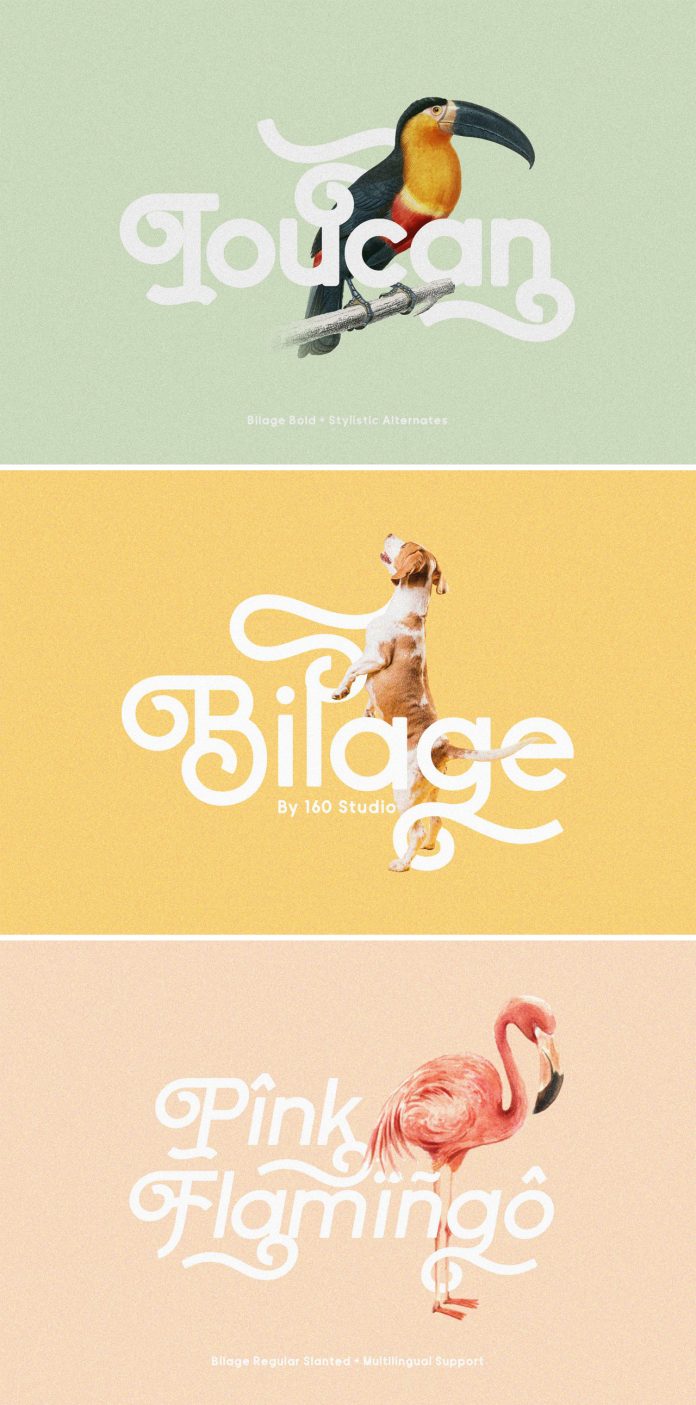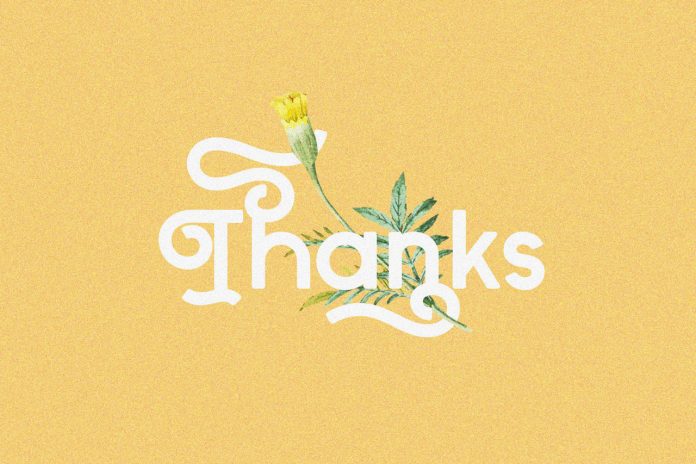
Bilage, an elegant yet playful display font created by 160 Studio.
If you are looking for a really unique typeface for your next poster design, logotype, packaging or whatever, the Bilage display font could be the right choice for you. The typeface lets you easily switch between a simple and a rather complex, elegant version to give your typographic work an eye-catching touch. Just have a look at the images below or click on one of the following links to download this amazing typeface for a very low budget.